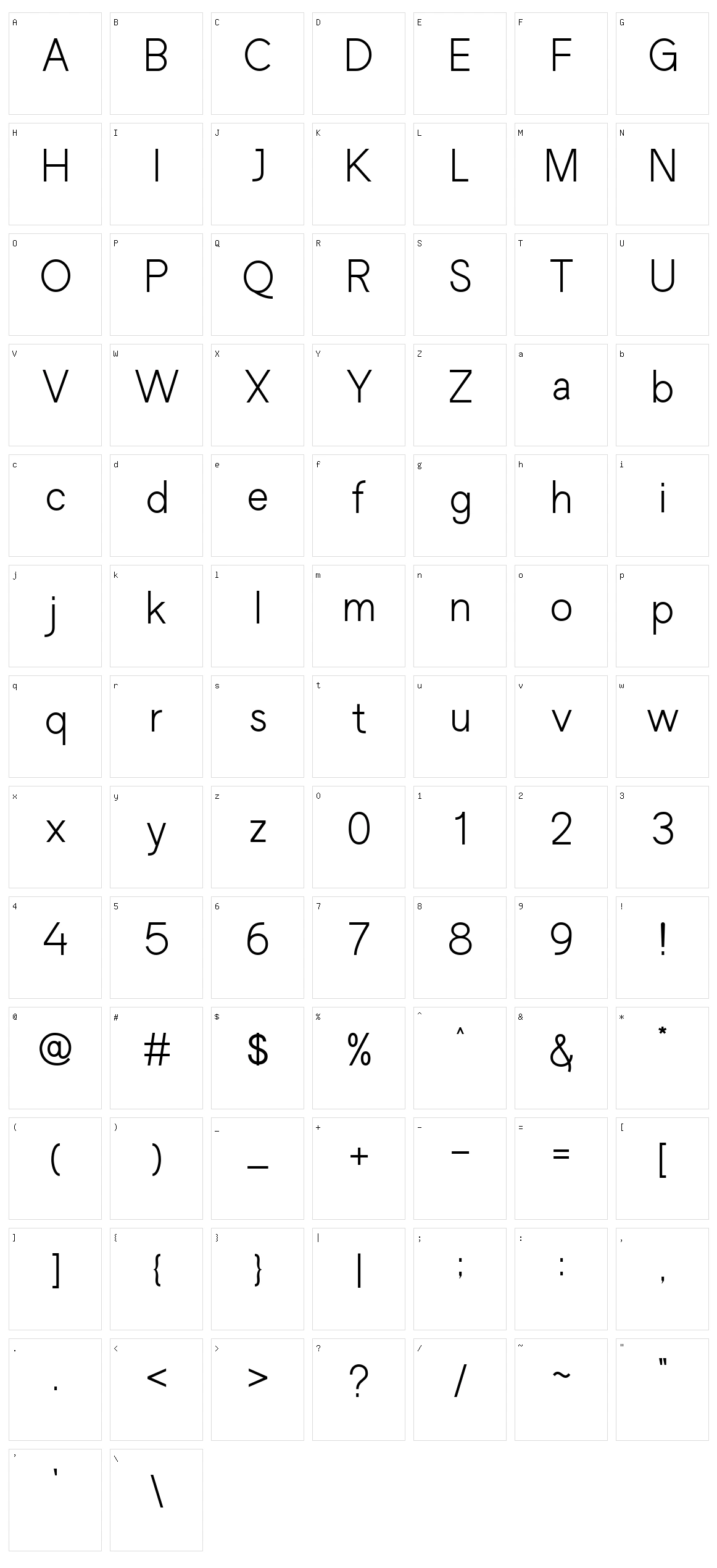
The free font Marthin Sans is carefully designed by Rmdndsign, showcasing a thoughtful balance of creativity and usability and falls under the Sans serif font style. When you download the ZIP file, it contains only 23.97 KB of font files, making it lightweight and quick to download. Please review the license details below to understand permitted usage and distribution rights. If license information is not available, we recommend using this font for personal projects only or contacting the author directly for commercial usage permissions.